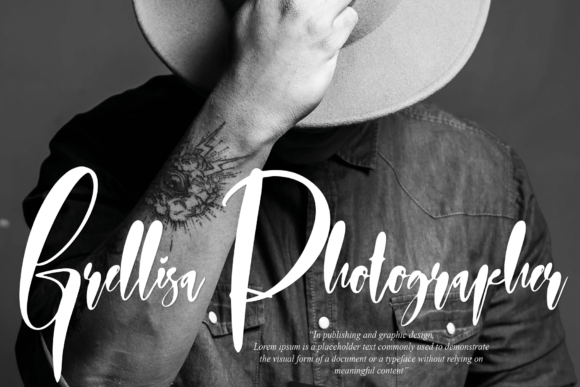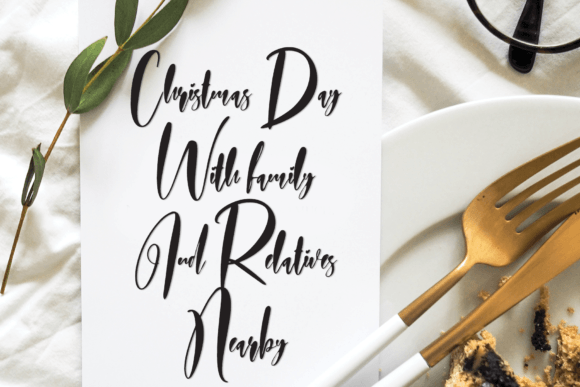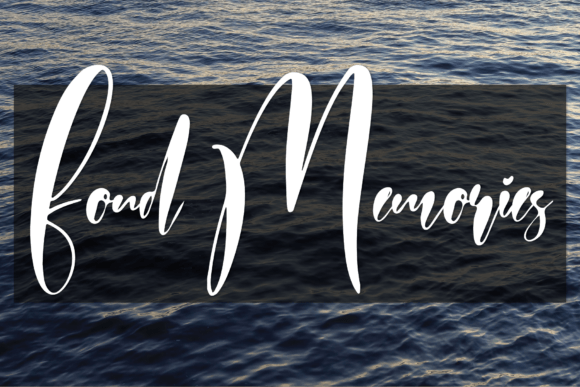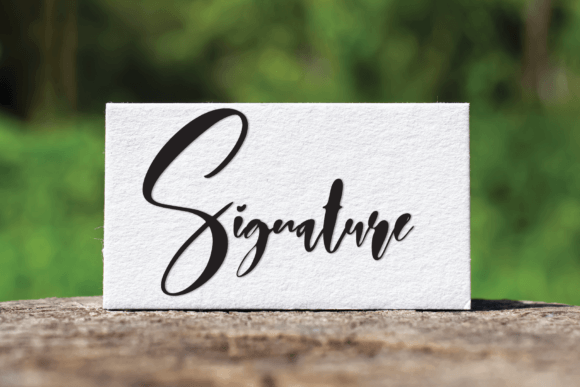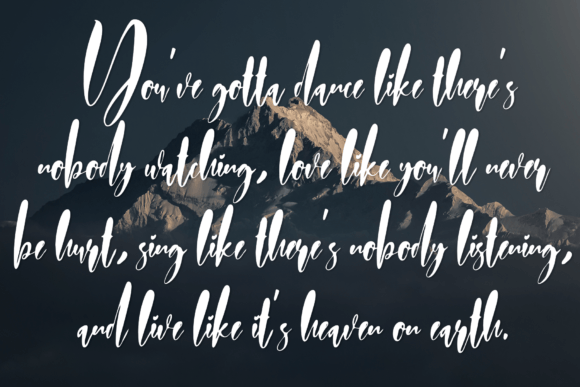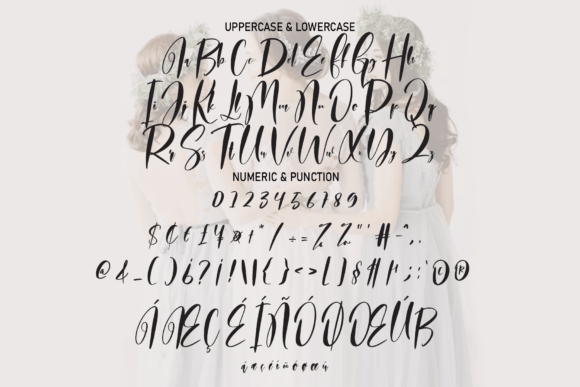
The Perfect Script: Unveiling the Bridesmaid Font
Have you ever been in the midst of a creative moment, and suddenly, all the pieces fall into place? You’re brainstorming ideas for a wedding invitation, and you stumble upon the perfect font – one that exudes elegance, charm, and a touch of handwritten whimsy. That’s exactly what happens when you discover the Bridesmaid Font.
This lovely script font is designed to add a personal touch to your designs. From wedding invitations to thank you cards, quotes, and greeting cards, Bridesmaid Font brings a sense of warmth and sophistication to every project. For designers, Bridesmaid Font is a valuable asset, offering a unique and versatile solution for a wide range of design applications.
Bridesmaid Font Key Features
- Font Family: Bridesmaid Script is a modern calligraphy font family designed for wedding invitations and other formal events.
- Unique Characteristics: Bridesmaid Script features elegant, flowing lines, and subtle flourishes, making it perfect for adding a touch of sophistication to wedding invitations, programs, and other formal stationery.
Bridesmaid Font Review
When I first saw Bridesmaid Font, I was drawn in by its whimsical, handwritten feel. ✨ The flowing curves and subtle flourishes make it perfect for wedding invitations, bridal shower decor, and other feminine designs. It’s a great choice for anyone looking to add a touch of romance and elegance to their project.
One of the things I love about Bridesmaid Font is its versatility. ✨ It’s available in a range of weights, from light to bold, making it easy to use in a variety of contexts. The font also includes a range of swashes and flourishes that can be used to add extra flair to your design.
- ⚠️ The font may be a bit too ornate for some designs, which could make it difficult to read in certain contexts.
- ⚠️ The font is only available in a limited range of languages, which could be a problem for designers working with clients who require multilingual support.
Overall, I think Bridesmaid Font is a beautiful and versatile choice for designers looking to add a touch of elegance to their projects. While it may have some limitations, the benefits far outweigh the drawbacks. With a little creativity, this font can help take your designs to the next level.
To get the most out of the Bridesmaid Font, be sure to:
- Use the font in conjunction with elegant design elements, such as lace or flowers
- Experiment with different font sizes and colors to create a visually appealing design
- Choose a soft, pastel-colored background to complement the font’s delicate look.
- Combine Bridesmaid Font with a clean, modern sans-serif font for the wedding details.
- Embellish the design with floral patterns or watercolor effects for a whimsical touch.
- Pair it with a watercolor effect to give it a romantic, ethereal look.
Create a unique and eye-catching wedding invitation using the Bridesmaid Font. This elegant script font adds a touch of romance and sophistication to your design.
To use Bridesmaid Font in this project:
Combining Bridesmaid Font with other design elements:
Project 2: Vintage-Inspired Wedding Menu
Add a touch of vintage charm to your wedding menu with the Bridesmaid Font. This elegant script font pairs perfectly with classic illustrations and distressed textures.
To use Bridesmaid Font in this project:
Combining Bridesmaid Font with other design elements: